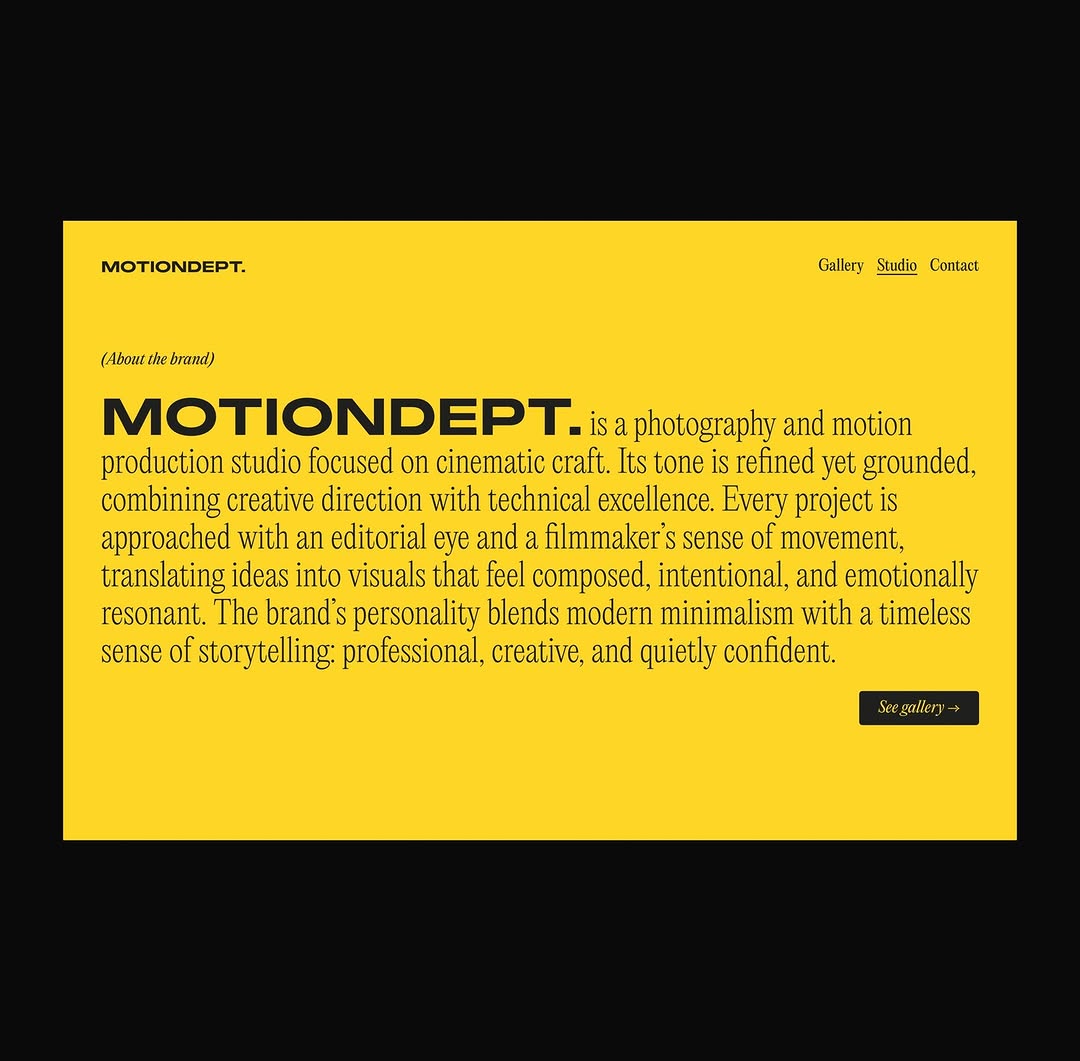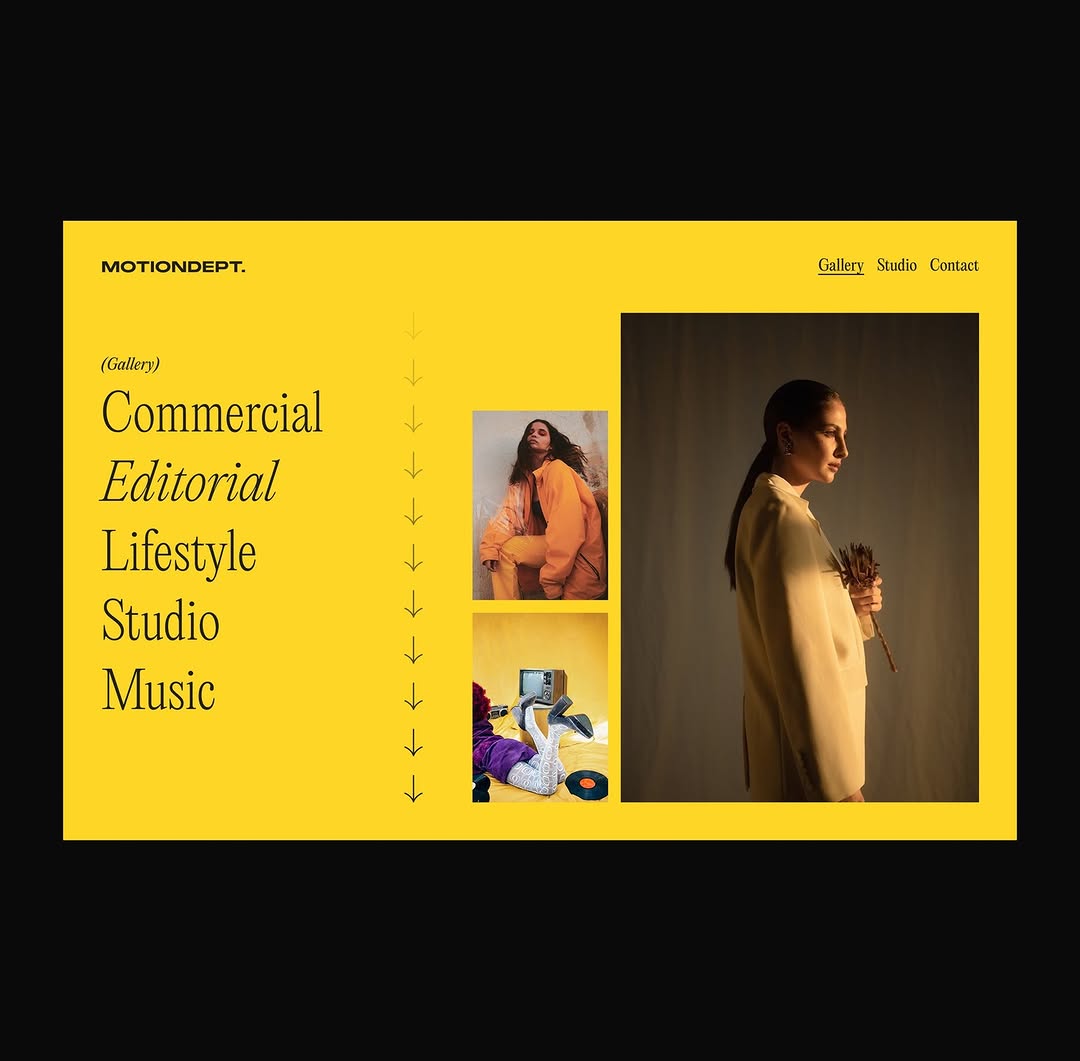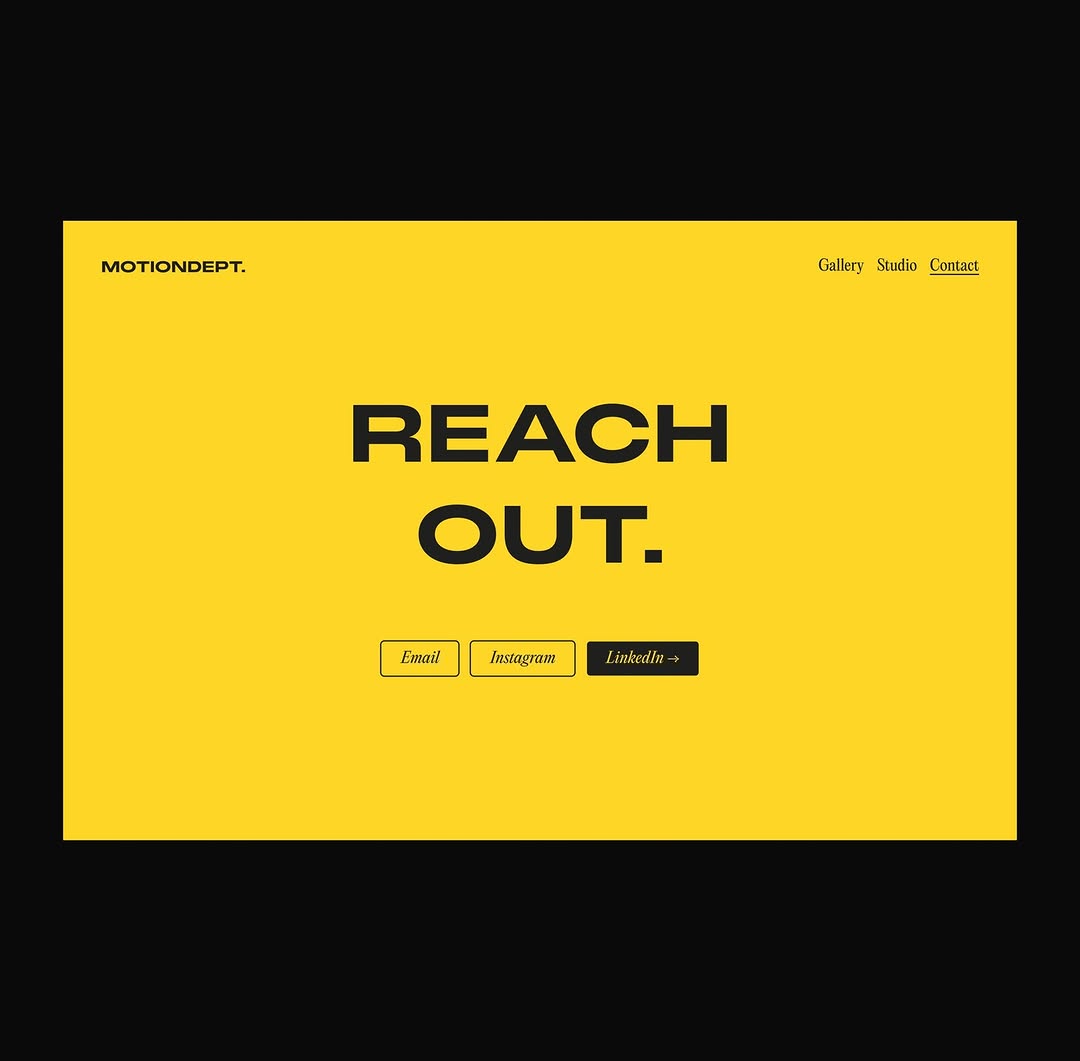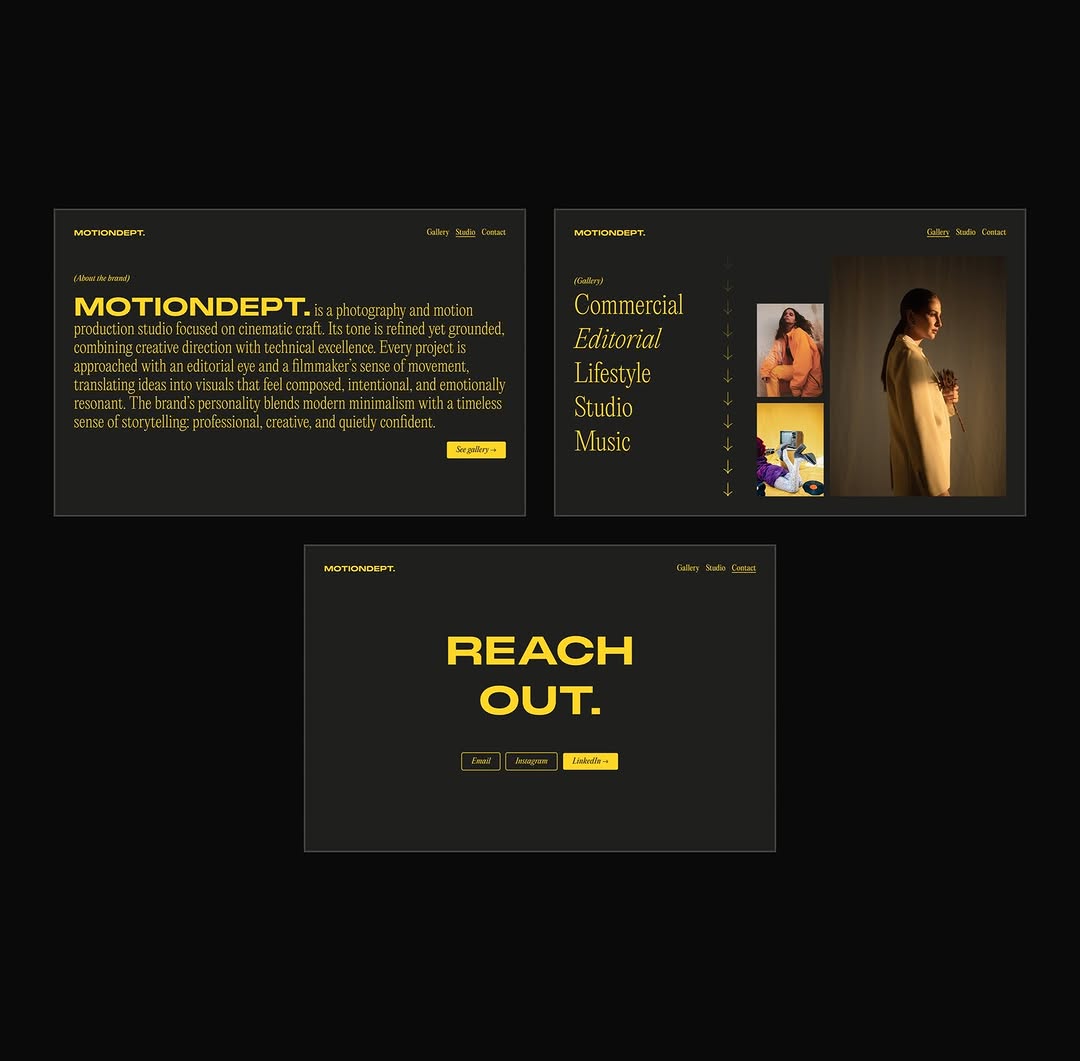
Typography & Layout Exploration: Photography Studio Portfolio Concept
This one featuring two typefaces with opposite styles: Monument Extended and Editorial New.